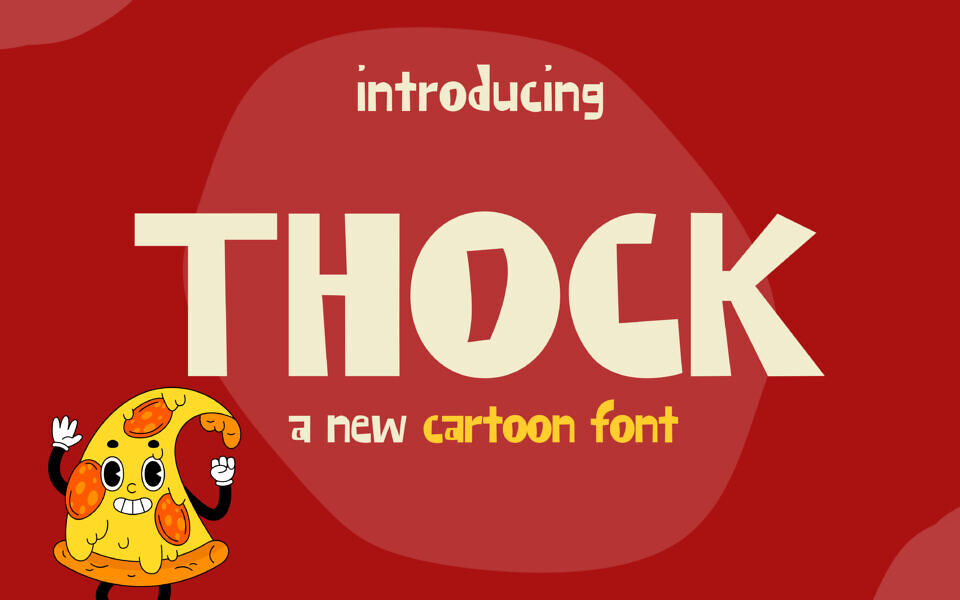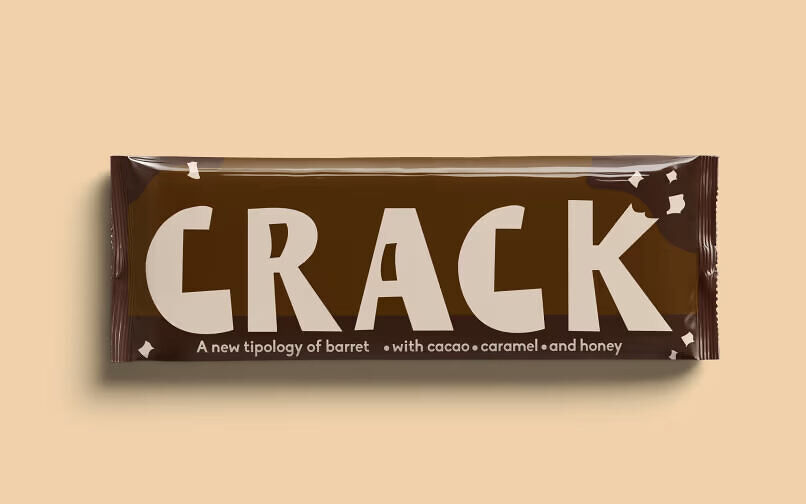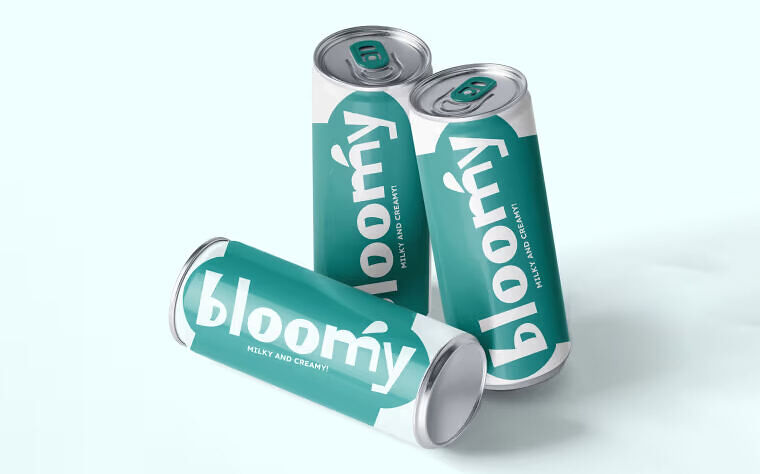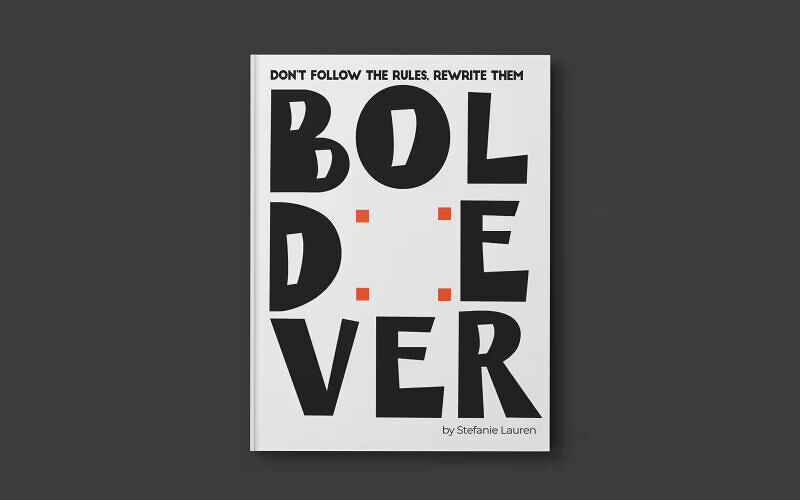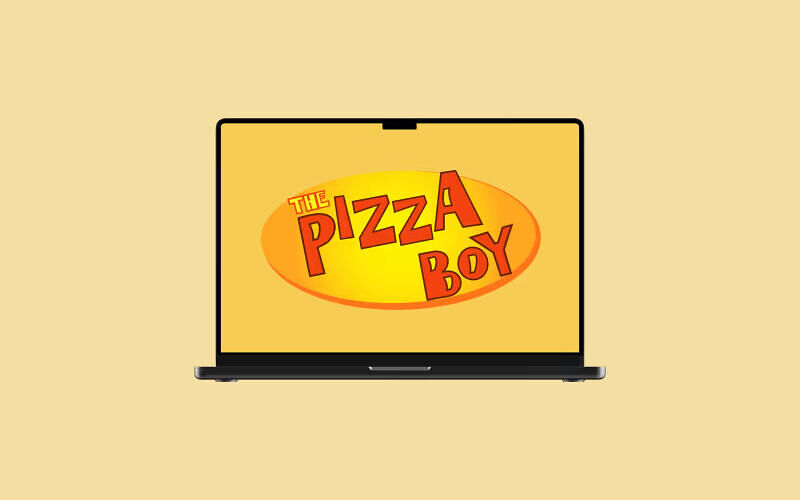
Thock Font
Thock is a digital typeface inspired by the cartoons of the 90s, especially those from Cartoon Network. Thock is a display typeface characterized by its bold, mechanical structure and retro-tech aesthetic.
It combines thick strokes, geometric proportions, and a monospaced feel, making it ideal for headlines, posters, and branding where a strong visual impact is desired.